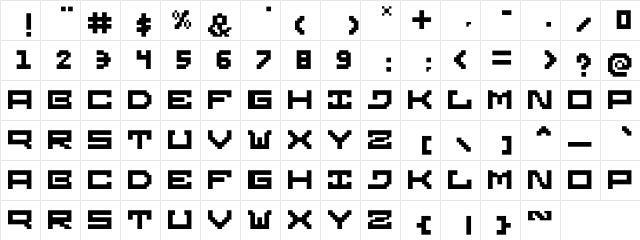
Gridilatia Regular
Design Context for Gridilatia Typeface
Gridilatia offers clean, dependable letterforms without strong stylistic allegiance, making it a practical choice for designers who need flexibility.